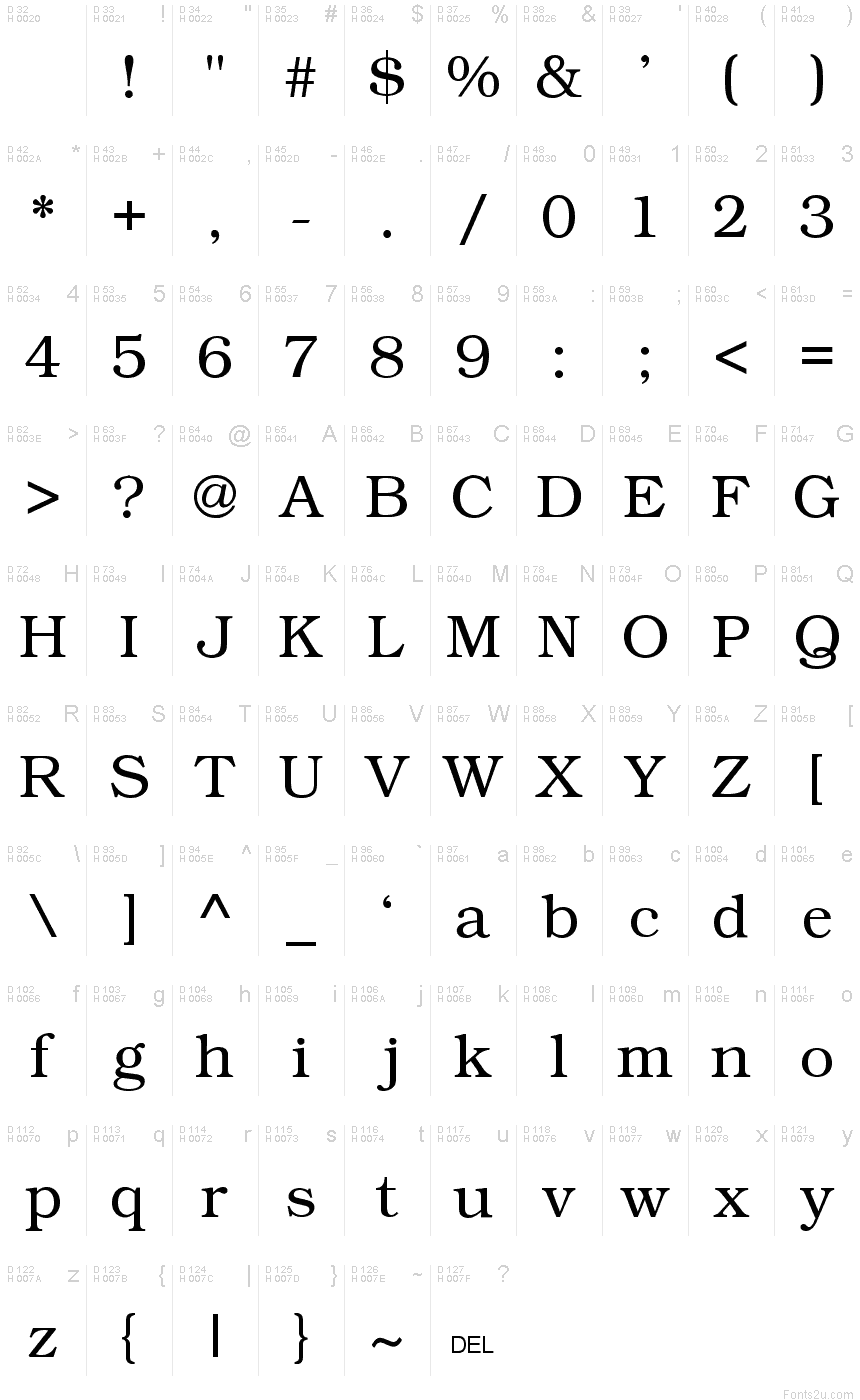
Kacst One Fixed is a free transitional serif font from KACST and URW Design and Development, pairing traditional proportions with a firm, literary tone. Its Latin letters show pronounced stroke contrast, bracketed serifs, and softly shaped curves, while compact spacing keeps the texture steady and composed.
This free font suits editorial identities, academic publications, cultural posters, book covers, and museum graphics that call for a restrained classical voice. It also works well for short headlines and title cards, where the broad capitals and sculpted lowercase forms have room to show their distinctive rhythm.